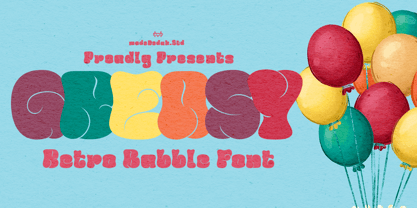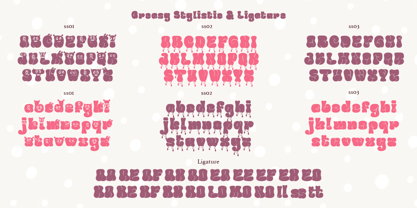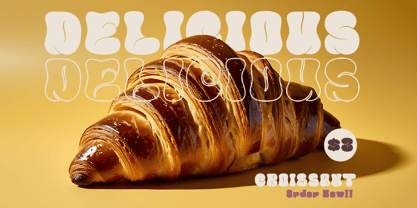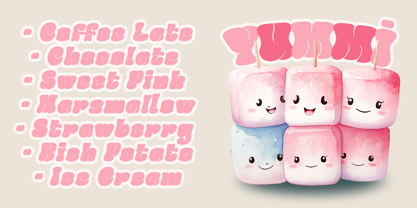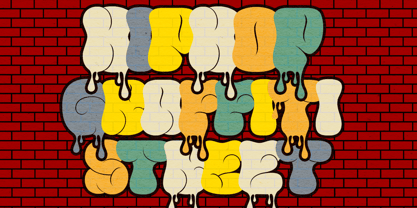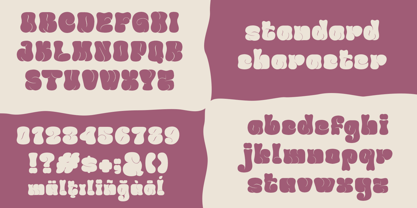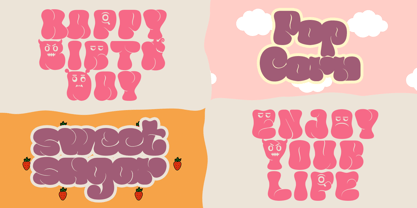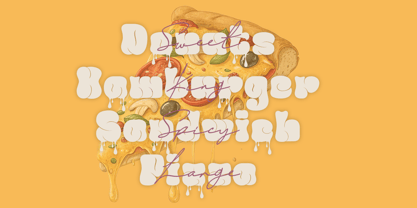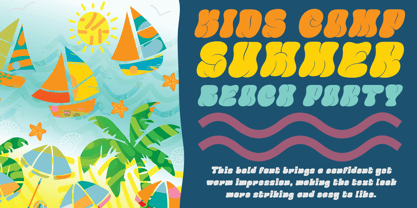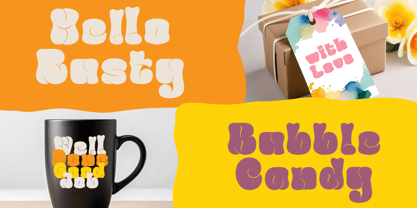
Greasy
by madeDeduk
The Greasy Font Family was designed by madededuk and published by madeDeduk. Greasy contains 2 styles and family package options. More about this family
Introducing Greasy bubble font, a bold typeface that exudes confidence while maintaining a warm impression. This font enhances text visibility, making it striking and appealing. Ideal for designs aiming to convey a cheerful and welcoming atmosphere, it adds a fresh touch that enlivens every element. With its easy readability and meticulously crafted glyphs, this font transforms simple words into beautiful expressions, making it a versatile choice for various creative projects.